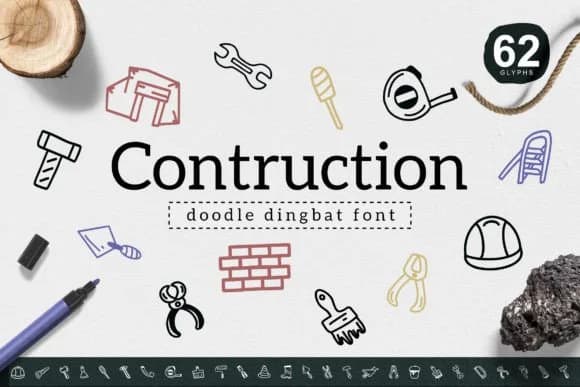
Construction by YandiDesigns is a hand-drawn dingbat collection built around tools, equipment, and industrial imagery. The simple line-work style gives it broad appeal, spanning everything from kids' activity sheets to professional branding applications. Each character feels intentionally sketched rather than mechanically rendered, lending layouts an approachable, human quality that truly connects with viewers.
You can deploy these icons across many practical applications. Scrapbooking pages benefit nicely from the architectural and tool-based visuals, while DIY craft signage gains personality and charm from the handmade aesthetic. Construction-themed apparel graphics find natural homes here, and event invitations (think a toolbox-themed birthday party or grand opening celebration) make effective use of the icon set. The collection also suits web projects well, where simple, recognizable symbols communicate function or theme without heavy design overhead.
The variety of construction-related objects means you're not restricted to a single visual approach or project type. Scaling these icons up for large signage or scaling them down for small label work, the clean line quality remains strong across applications. If you need dingbats that bring industry themes, building trades, or tool imagery to life with genuine warmth and accessibility, grab Construction from Creative Fabrica and see what works for your next project.